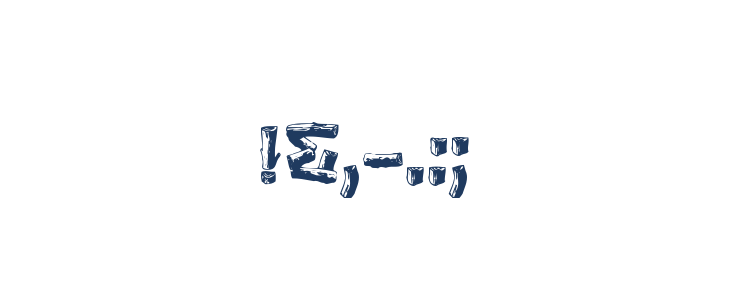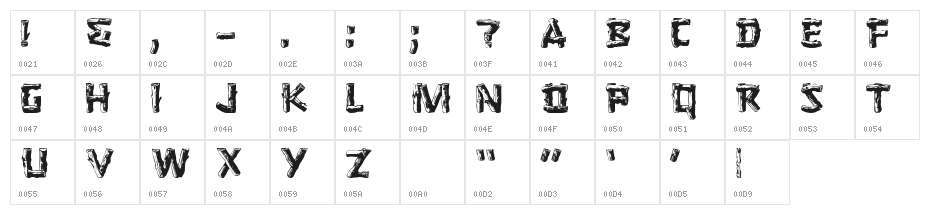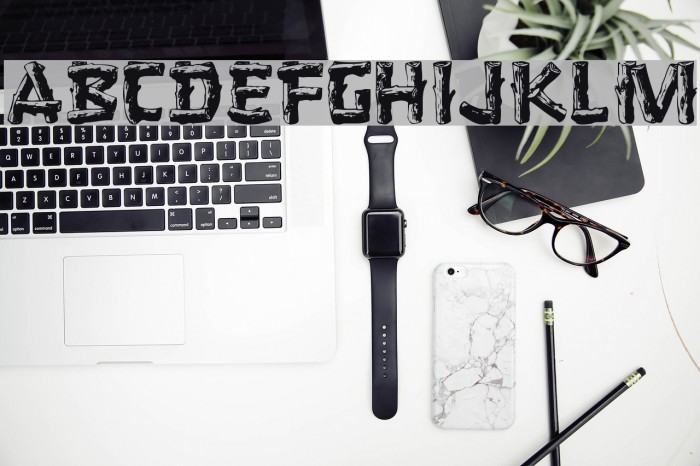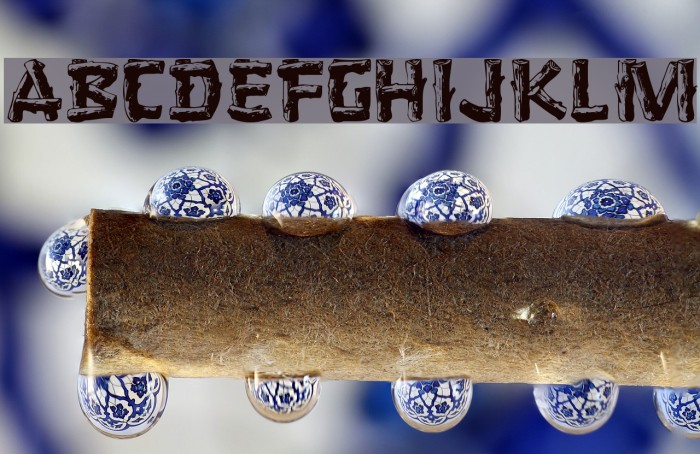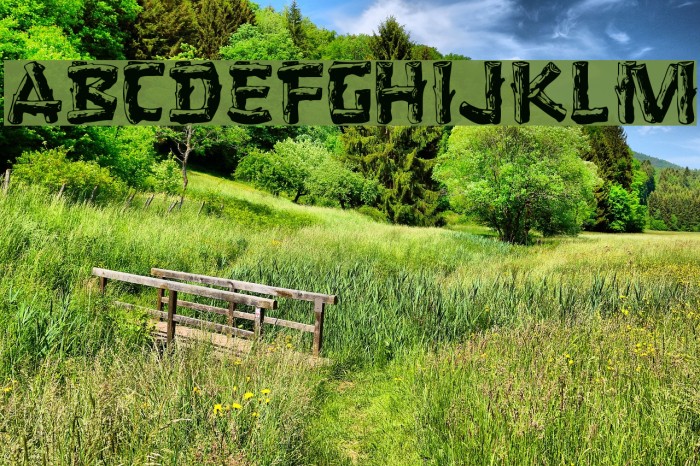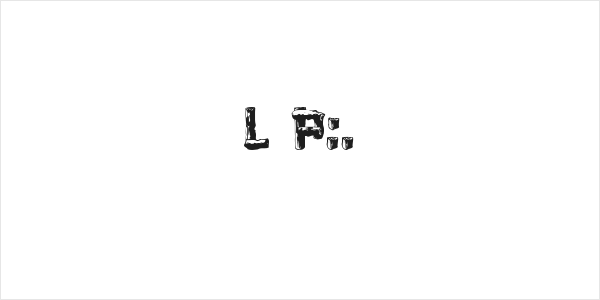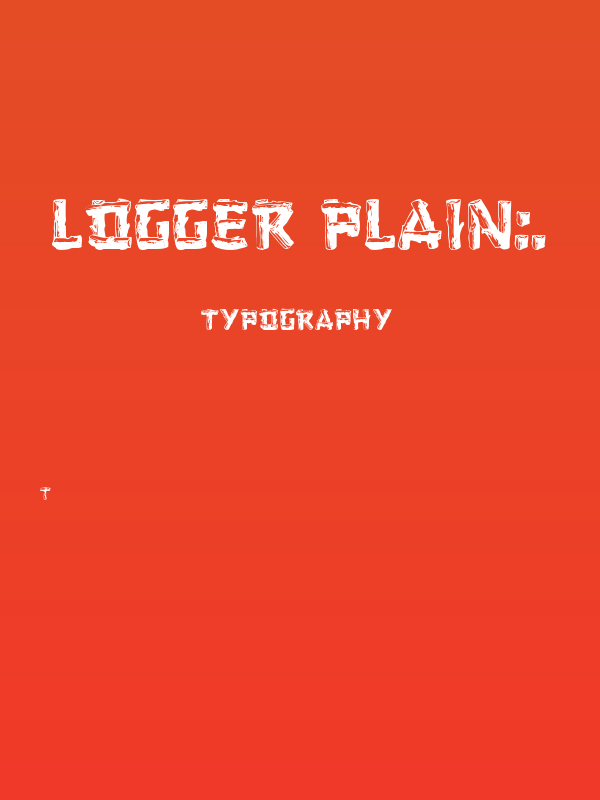
Logger [Plain]:001.001 Font
Logger [Plain]:001.001 Description
This font features a rugged, textured appearance reminiscent of wooden logs or carved wood. Each character is uniquely designed with rough edges and irregular shapes, giving it a handcrafted, organic feel. The uppercase letters are bold and prominent, while the special characters maintain the same rustic style. The overall design suggests a natural, outdoorsy theme, making it ideal for projects that require a touch of wilderness or adventure. The font's distinct style ensures it stands out, making it suitable for eye-catching headlines or thematic designs.
| Proposed Projects | Ideal for outdoor-themed branding, adventure posters, rustic signage, or nature-inspired designs. |